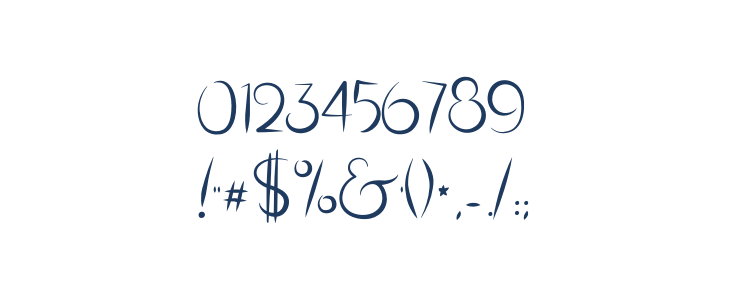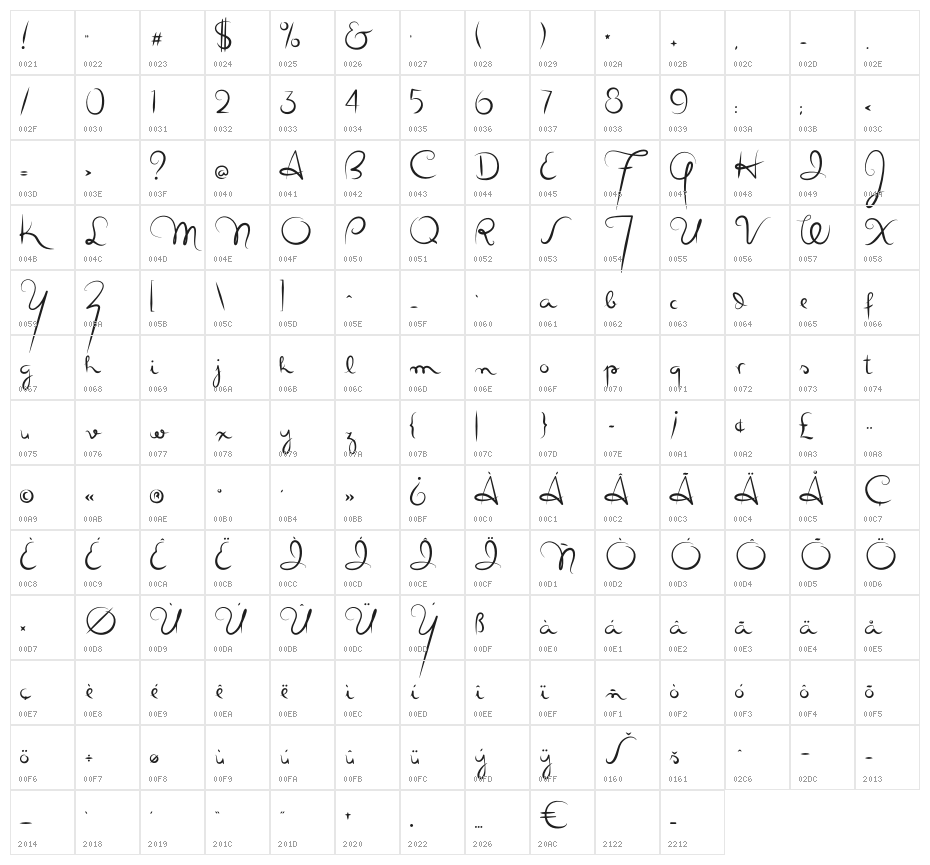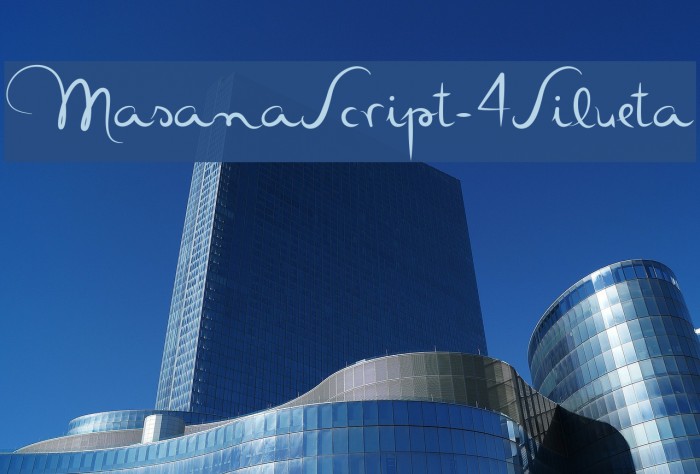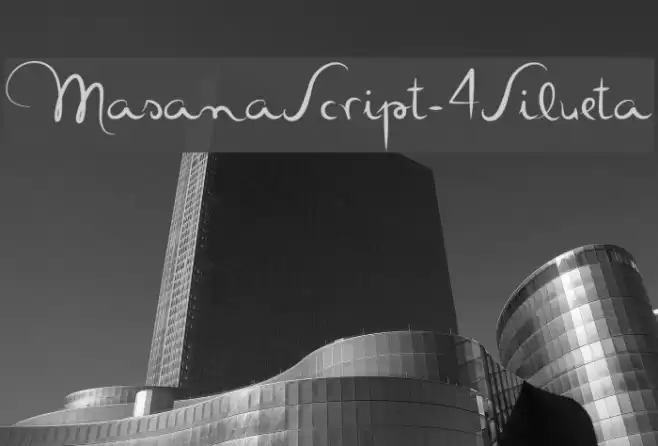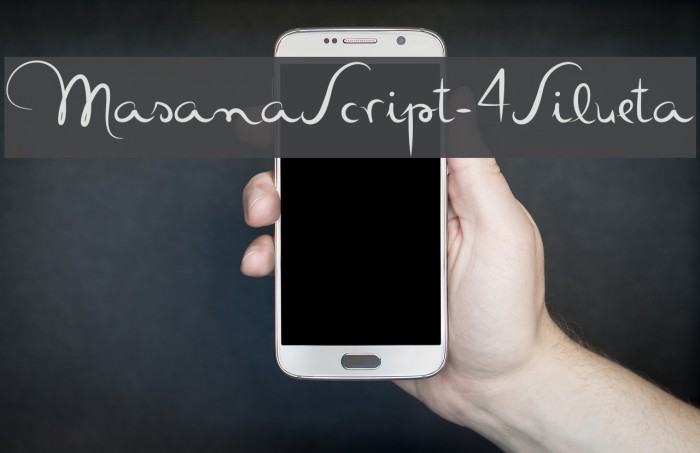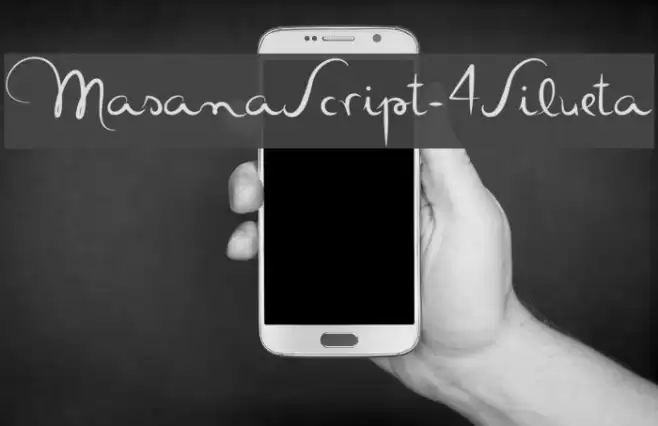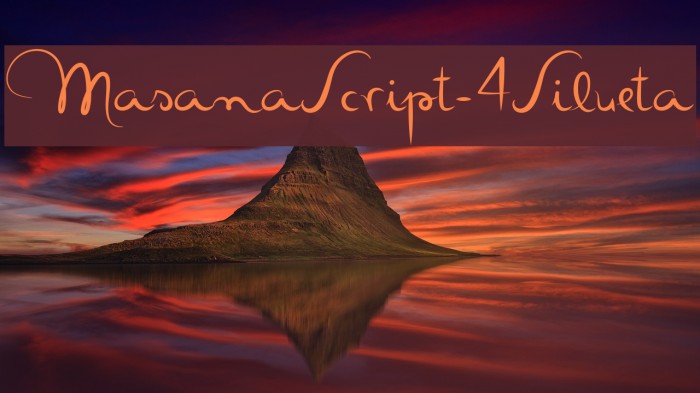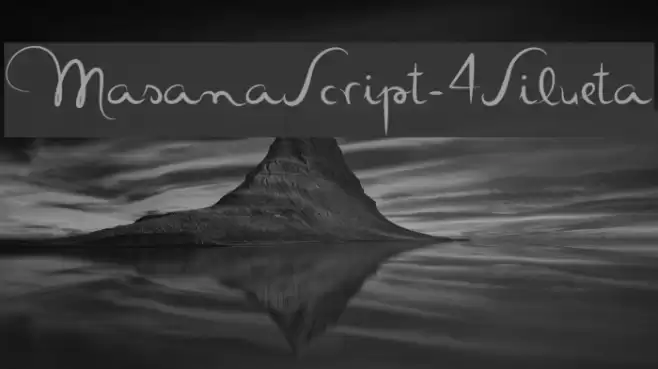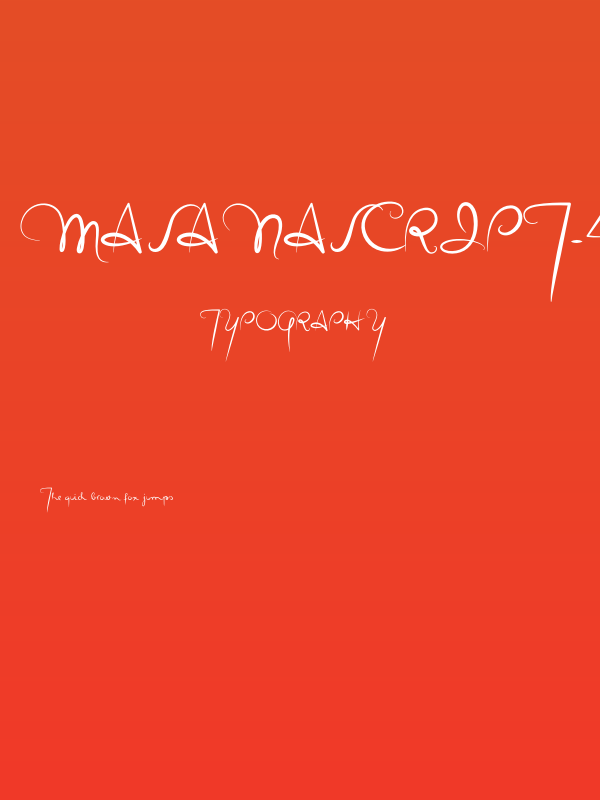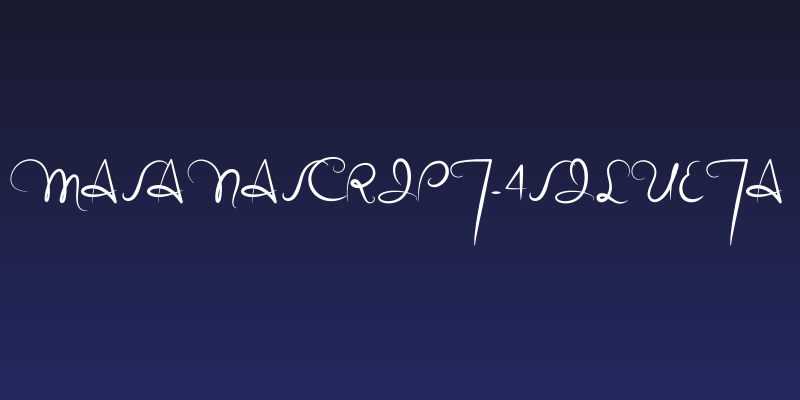
MasanaScript-4Silueta Font
MasanaScript-4Silueta Description
This font features an elegant and flowing script style, characterized by its graceful curves and loops. The uppercase letters are particularly ornate, with sweeping ascenders and descenders that give a sense of movement and fluidity. The lowercase letters maintain a consistent style, offering a harmonious blend of formality and creativity. Numbers and special characters are designed to complement the overall aesthetic, with a similar emphasis on curves and decorative elements. This font is ideal for projects that require a touch of sophistication and artistic flair.